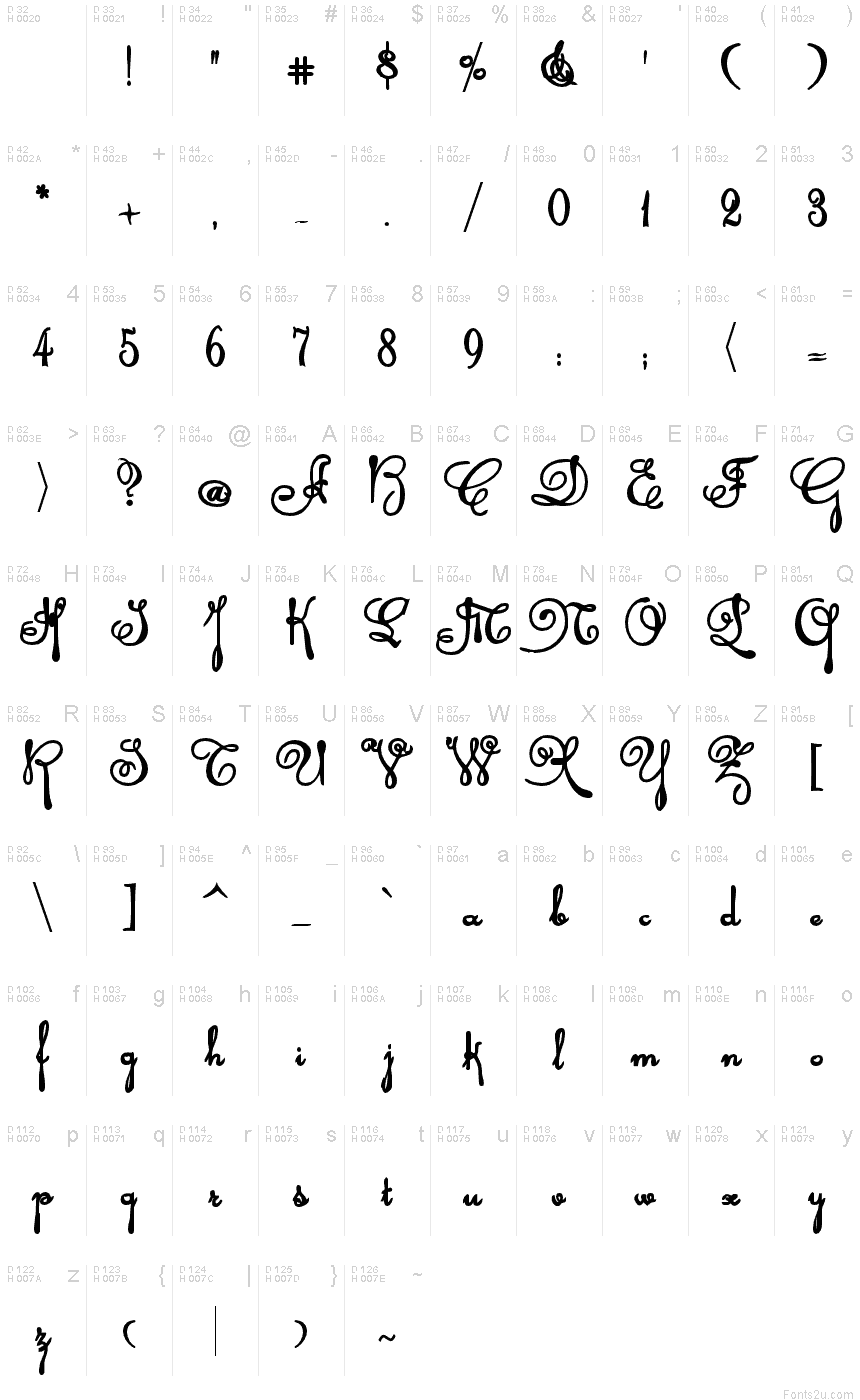
Rhalina Bold by Daniel Zadorozny of Iconian Fonts is a free handwritten font with oversized loops and an improvised silhouette. Rounded strokes curl into knots, then stretch into long, sweeping flourishes.
Fashion branding is its strongest setting, especially for signature-like logos. Its restless forms also suit album covers, cosmetics packaging, and event invitations. The lettering fits experimental music and independent fashion, where irregular shapes become part of the artwork.
Rhalina Bold